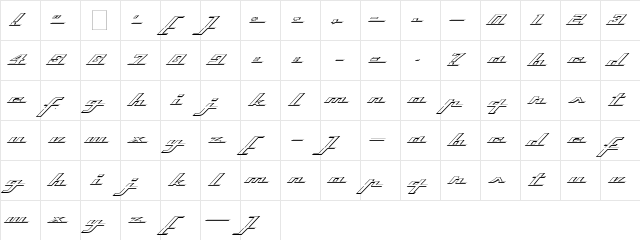
Top Speed Outline Regular
| Foundry | Jason Vanderhill |
| Designer | Jason Vanderhill |
Design Context for Top Speed Outline Typeface
Top Speed Outline is built around its visual character rather than neutral utility — its distinctive forms are designed to make an impression at display sizes.
Font Pairing: Pair with a clean neutral sans-serif for body copy to let Top Speed Outline's character lead without overwhelming the composition.
Pro Tip: Use Top Speed Outline exclusively at display sizes — it was designed to be seen, not read at length. Let a neutral companion handle body copy.